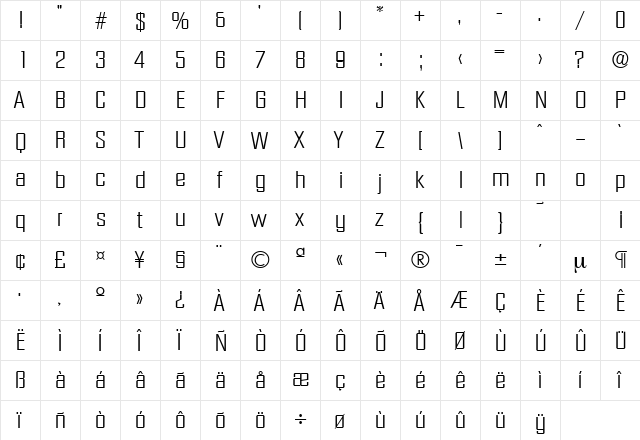
Diamante-Serial-Light Regular
Diamante-Serial-Light takes a measured approach to typography — its balanced proportions and neutral character make it a reliable workhorse for both digital and print work. The delicate stroke weight brings airiness and refinement to layouts.